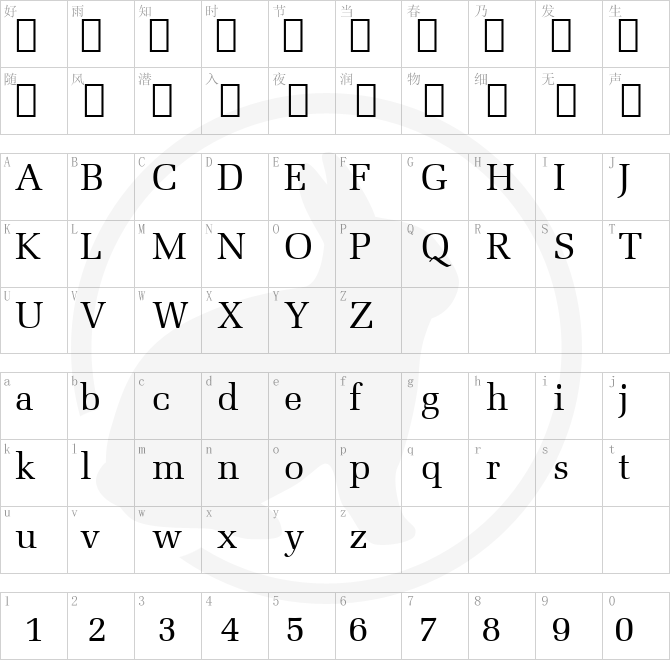
- Font Name:ZapfEllipt BT
- Subfamily:Roman
- Subfamily:Zapf Elliptical 711
- Full Name:Zapf Elliptical 711 BT
- PostScript:ZapfElliptical711BT-Roman
Zapf-Elliptical-711-BT-copy-1-.ttf is a very beautiful artistic font, Zapf-Elliptical-711-BT-copy-1-.ttf is widely used in the design and printing of various books and pictures,Zapf-Elliptical-711-BT-copy-1-.ttf has a strong visual impact,Zapf-Elliptical-711-BT-copy-1-.ttf is a commonly used font in newspapers, magazines and books, and is used in posters, e-commerce Poster design, store design, logo design, font design and other fields.Zapf-Elliptical-711-BT-copy-1-.